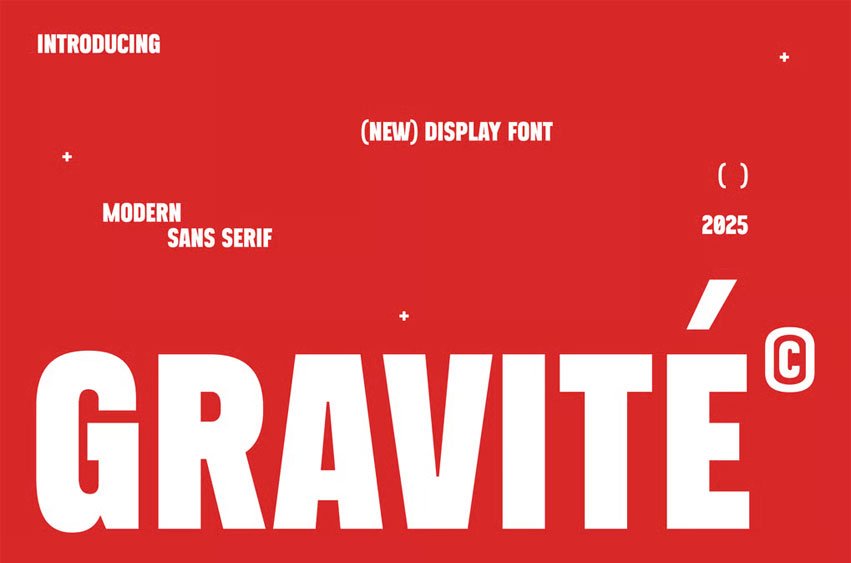
Gravité Font
Gravité Font is a bold modern sans-serif display font designed for impactful headlines, branding, posters, and digital layouts. Its tall, confident letterforms deliver a strong visual presence, making every design look sharp and contemporary.
Perfect for creative projects that demand clarity, power, and minimalist style with a striking editorial feel.